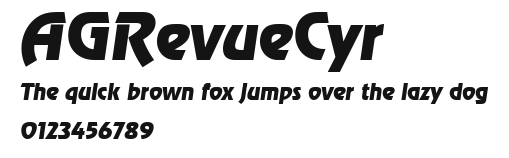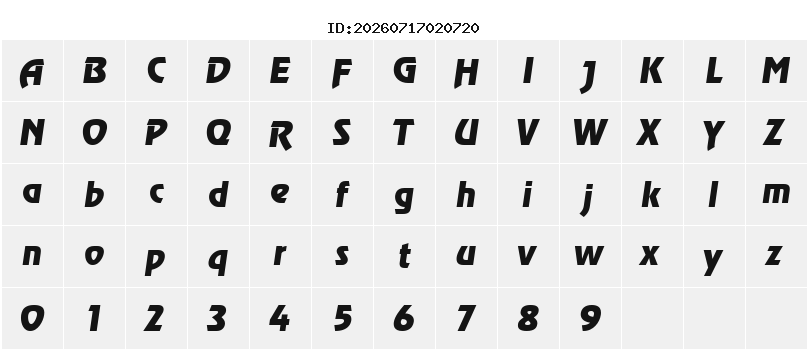
AGRevueCyr Preview
• Font Name: AGRevueCyr
• Font ID: FontMonger:AGRevueCyr Italic
• Full Font Name: AGRevueCyr Italic
• PostScript Name: AGRevueCyrItalic
• Character Count: 271
About AGRevueCyr.ttf
AGRevueCyr.ttf is a modern, elegant sans-serif font designed for ultimate readability and visual harmony. Perfect for branding, headlines, web design, and print materials.